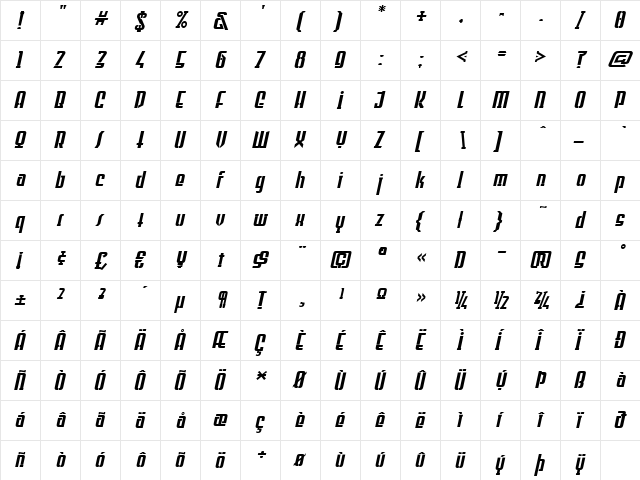
WILD1 Firstvision Exegesis Bold Italic
Design Context for WILD1 Firstvision Exegesis Typeface
WILD1 Firstvision Exegesis is a composed and adaptable typeface that performs quietly and consistently across a wide range of design contexts. Its italic angle brings a sense of urgency and motion to the letterforms. Its bold stroke weight gives it real presence on the page.
Pro Tip: Use WILD1 Firstvision Exegesis for emphasis, pull quotes, and subheadings where its slanted energy can add rhythm to the layout.